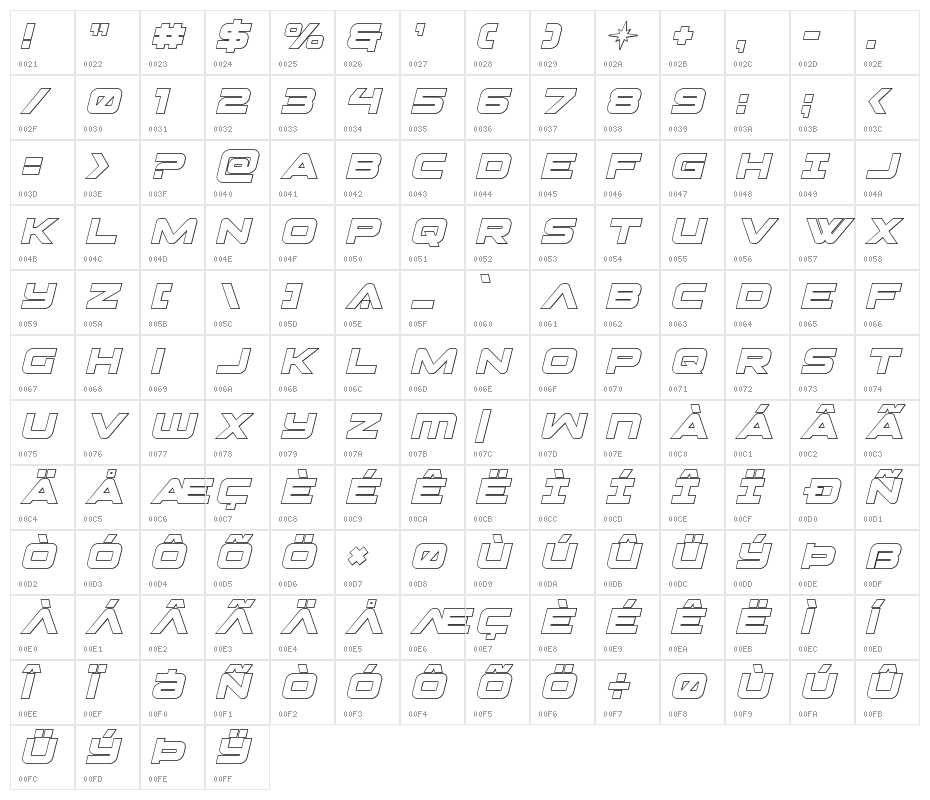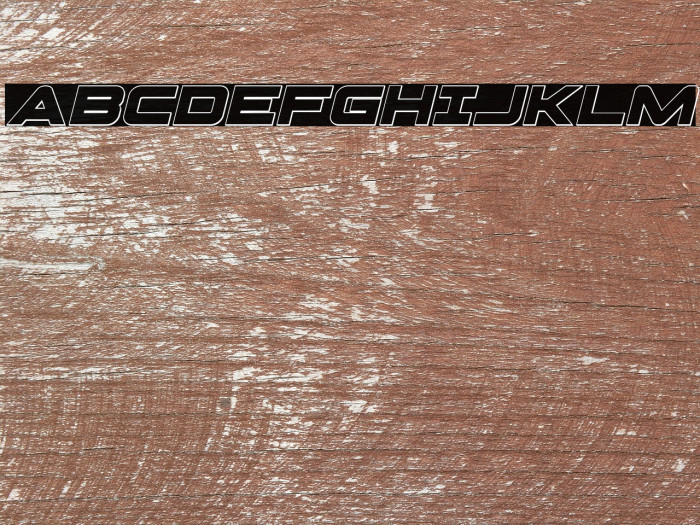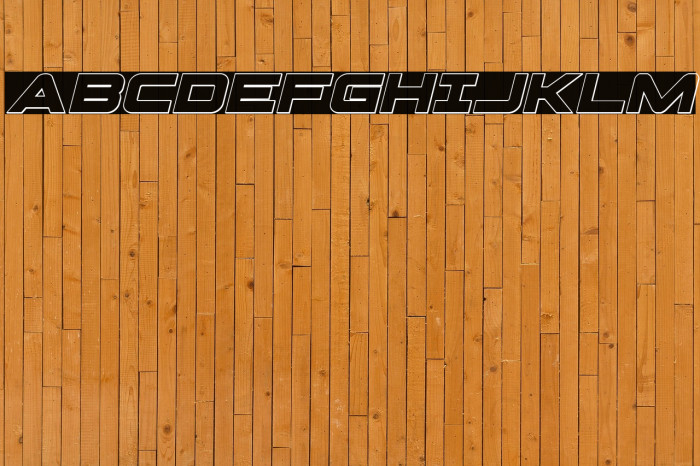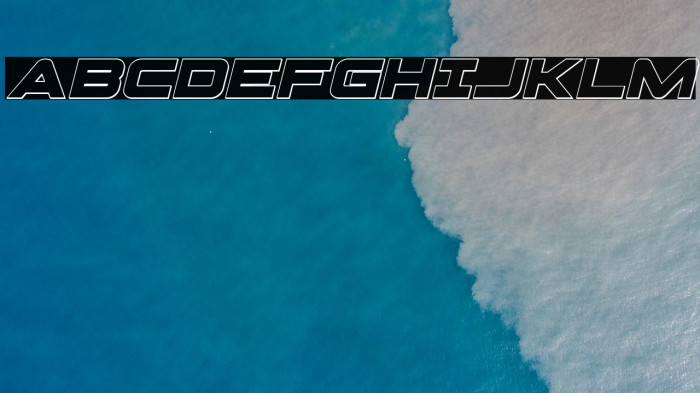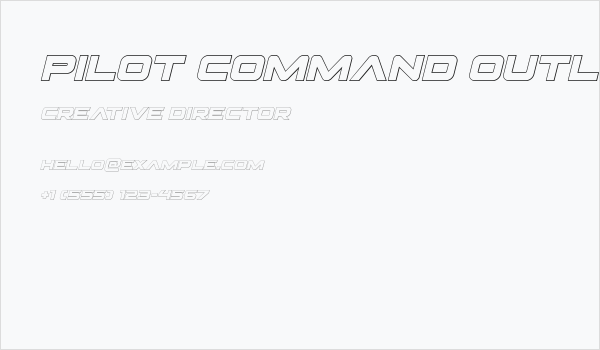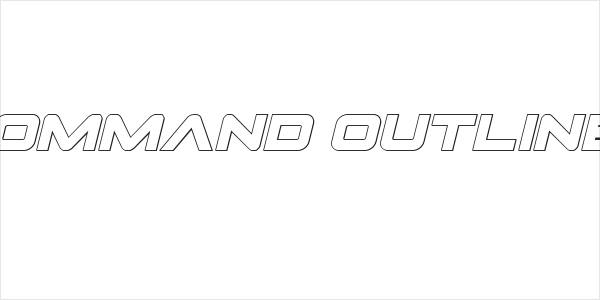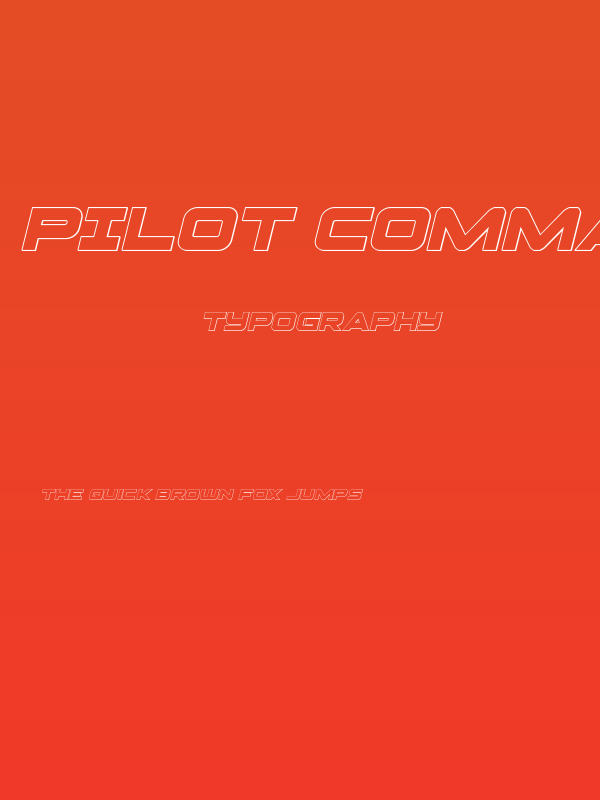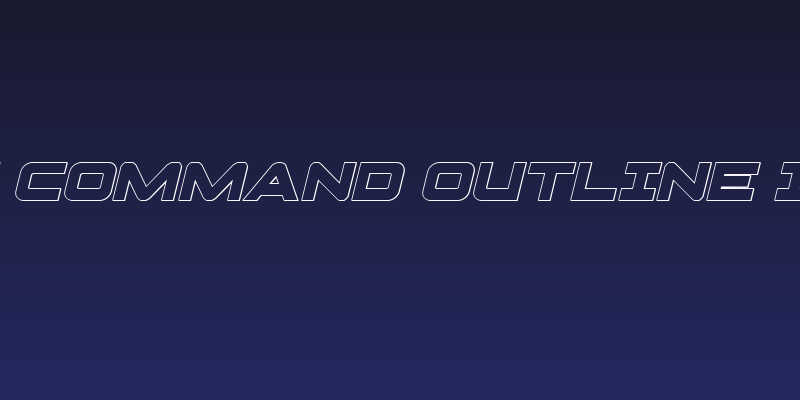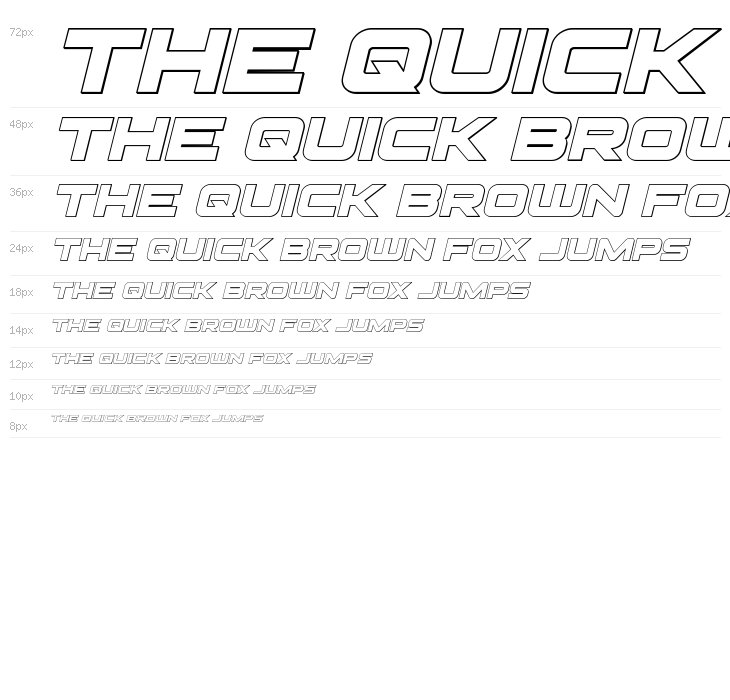
Pilot Command Outline Italic Font
Pilot Command Outline Italic Description
This font features a modern, futuristic design with an outline style that gives it a bold and striking appearance. The characters are italicized, adding a dynamic and forward-leaning effect. Each letter and number is crafted with precision, showcasing clean lines and geometric shapes. The uppercase and lowercase letters maintain a consistent style, while the numbers and special characters complement the overall aesthetic. The font's outline nature allows for versatility in design, making it suitable for various creative projects.
| Proposed Projects | Ideal for branding, posters, video game graphics, and sci-fi themed designs. |